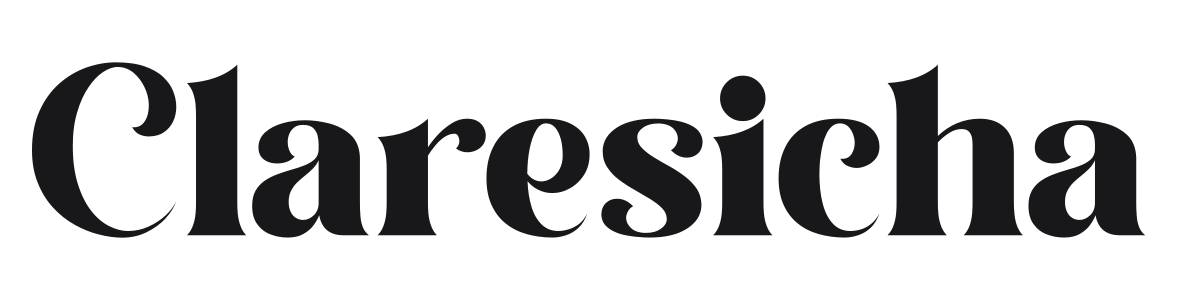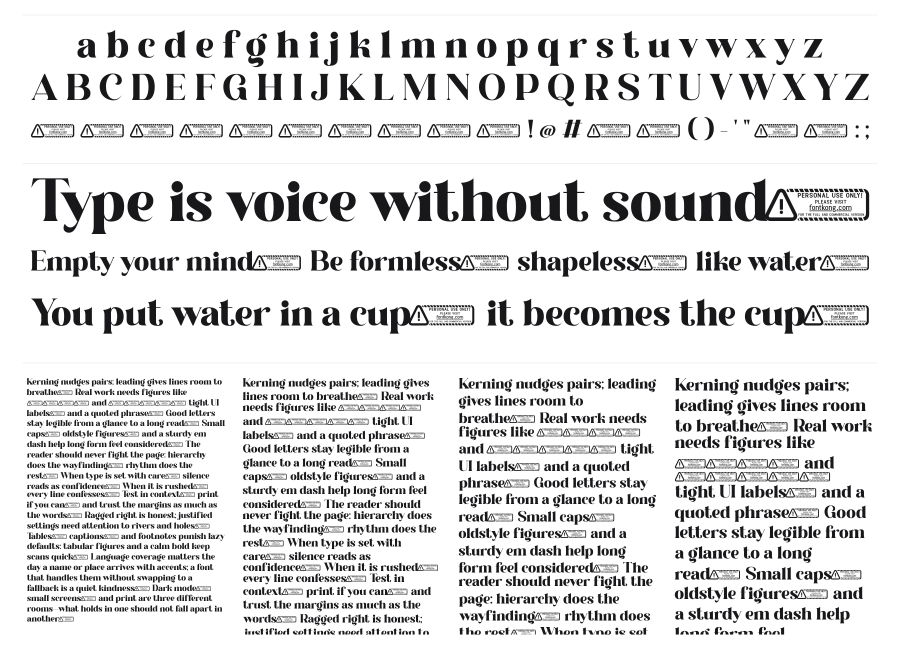
Claresicha
Claresicha is a bold modern serif in the Didone tradition, built on extreme stroke contrast that swings between heavy stems and razor-thin hairlines. The wide proportions and sharp triangular serifs give it a commanding, editorial confidence reminiscent of Bodoni at its most dramatic. It thrives at large sizes in fashion, beauty, and luxury branding contexts.